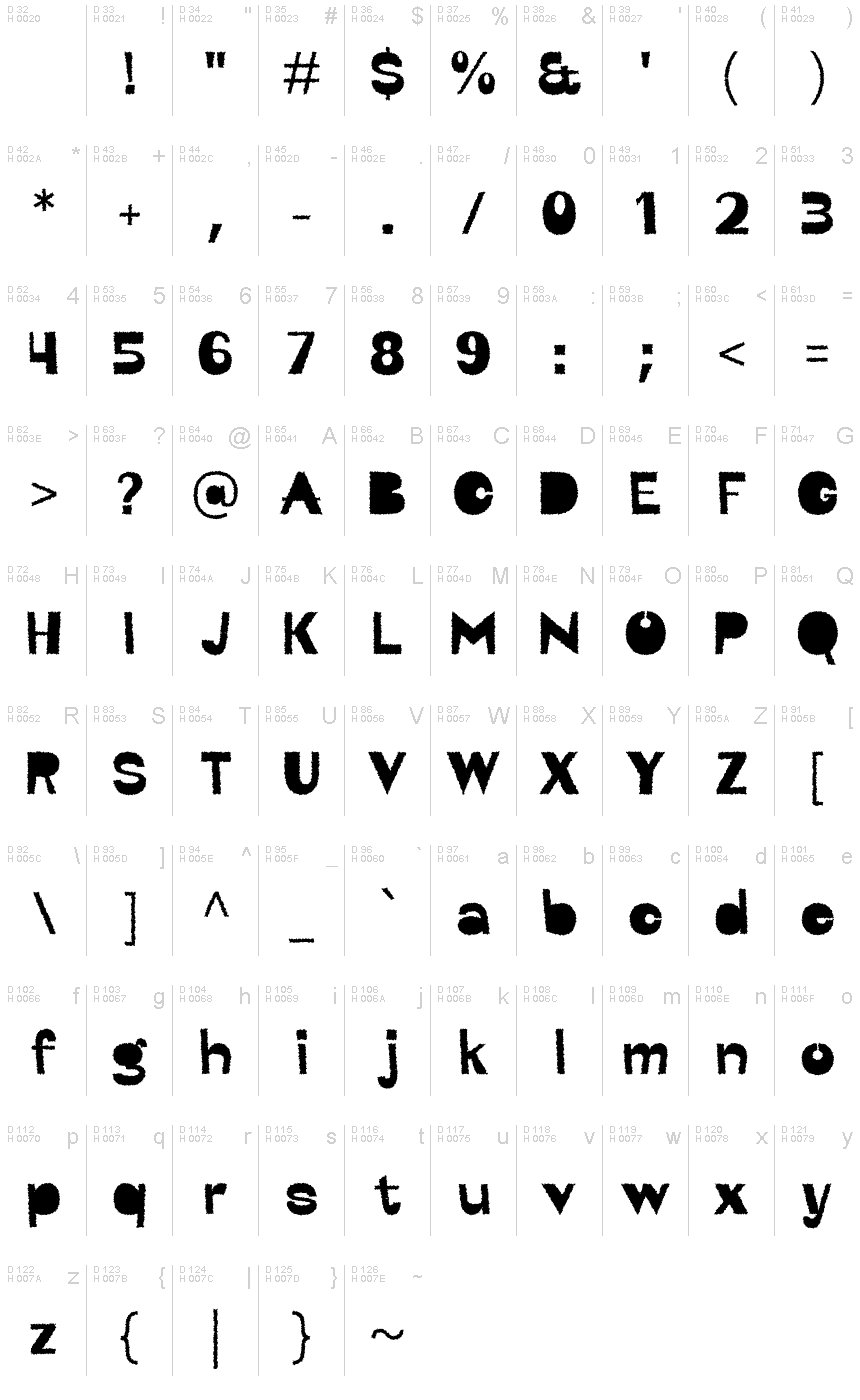
Moonstar-Regular
Moonstar, designed by Drizy Studio, is a bold and edgy display font with an eroded style that makes a statement. Perfect for projects that demand attention, this font is ideal for anything from music posters to streetwear branding. With its unique texture and strong presence, Moonstar adds personality to any design. Use it for album covers, event flyers, or even product packaging to create a distinct look that stands out in the crowd. Let Moonstar be the star of your next creative project and watch it shine!